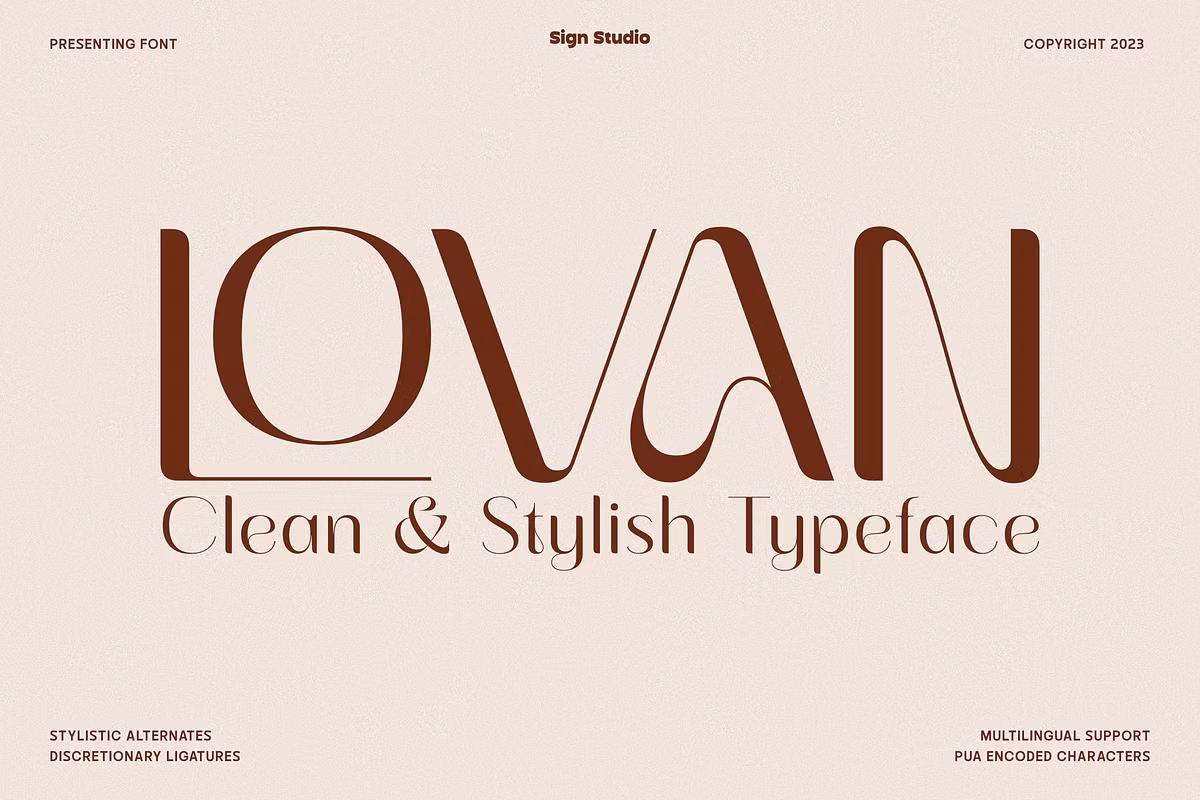
You must purchase this font for commercial use. However, you can download Lovan Font Free Download for testing purposes. Lovan is a modern and elegant serif font that combines timeless design with contemporary simplicity. Perfect for branding, wedding invitations, editorial layouts, logo design, product packaging, and classy social media graphics, Lovan brings a sophisticated and clean aesthetic to any creative project.
With its graceful curves, high contrast strokes, and refined letterforms, Lovan offers both beauty and readability. It’s ideal for high-end designs where elegance and clarity are key. Whether you're designing a fashion brand identity or creating a luxurious invitation suite, Lovan Font Free Download allows you to explore its stylish potential before committing to commercial use.